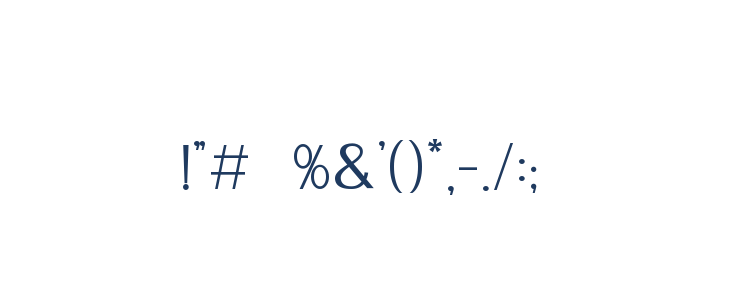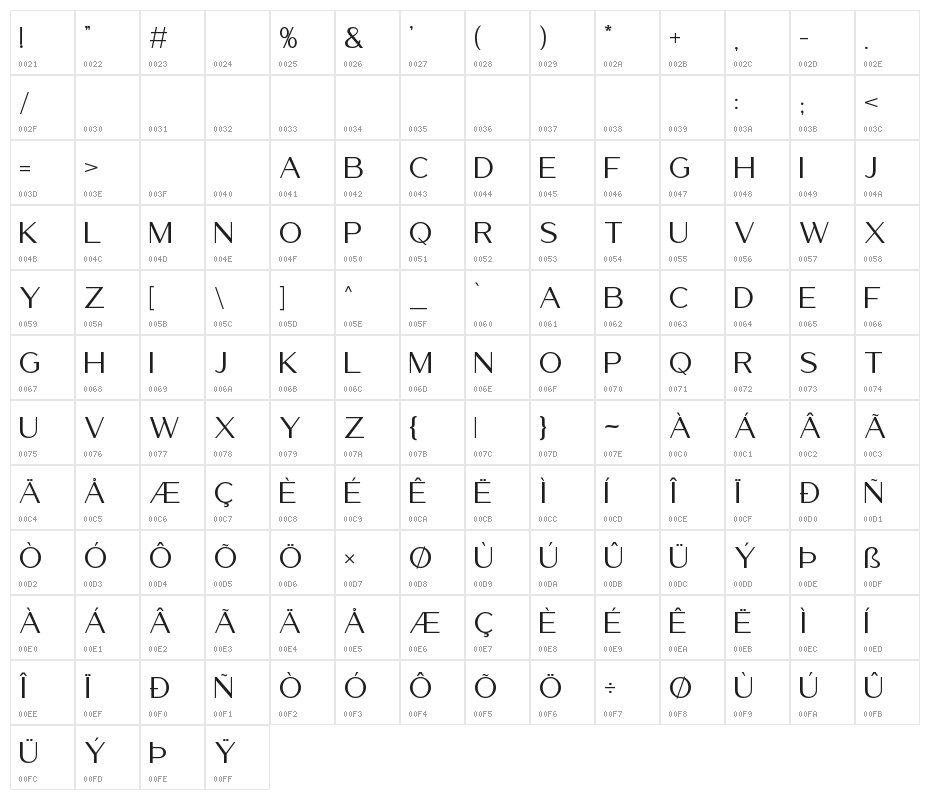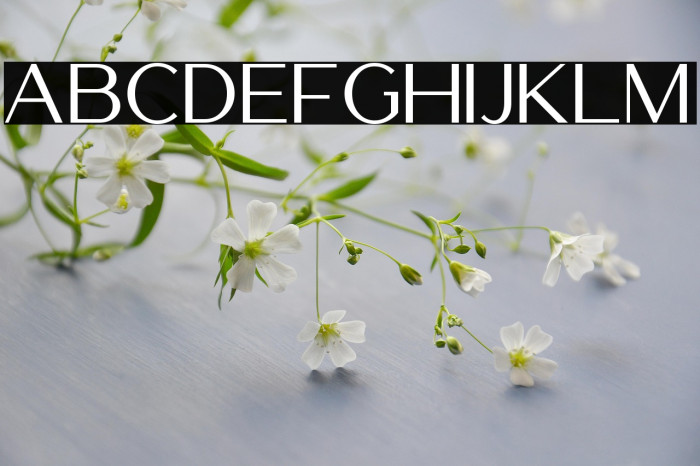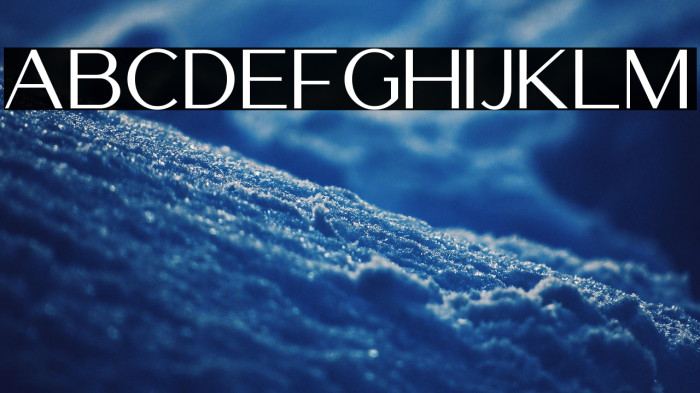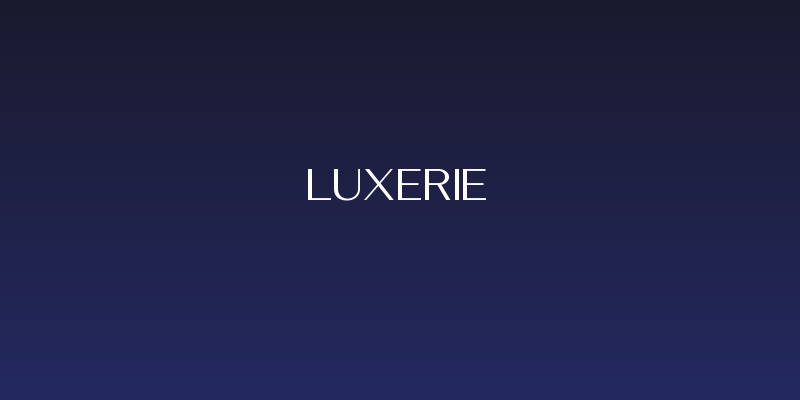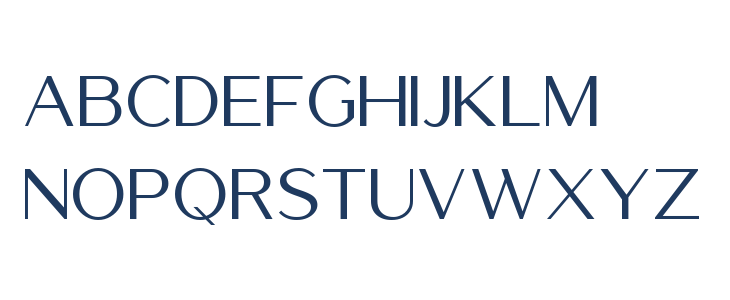
Luxerie Font
Luxerie Description
This font features a clean and modern sans-serif style with a focus on simplicity and readability. The characters are evenly spaced with a consistent stroke width, giving it a balanced and harmonious appearance. The uppercase letters are bold and assertive, while the lowercase letters maintain a uniform height, enhancing legibility. The numerals are clear and straightforward, making them suitable for various applications. Special characters are designed with precision, adding to the font's versatility. This font is ideal for projects that require a contemporary and professional look.
| Proposed Projects | Ideal for corporate branding, web design, advertising, and editorial layouts. |